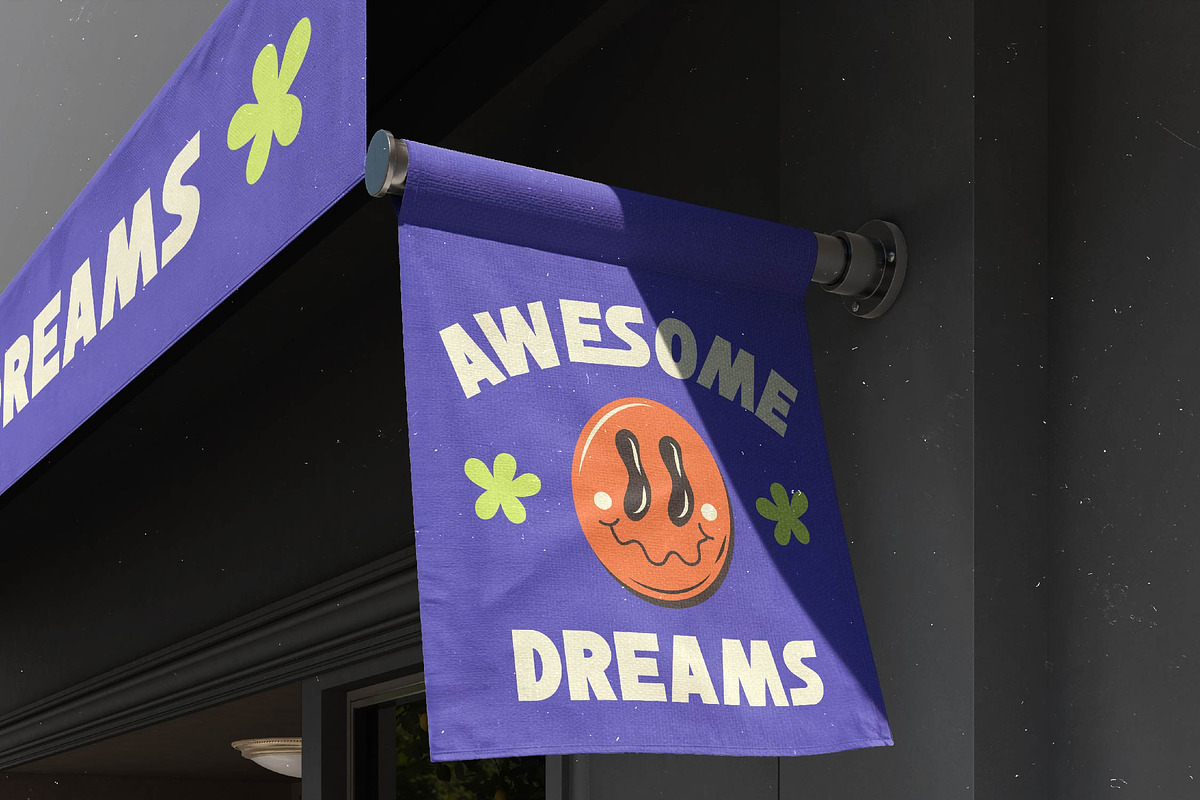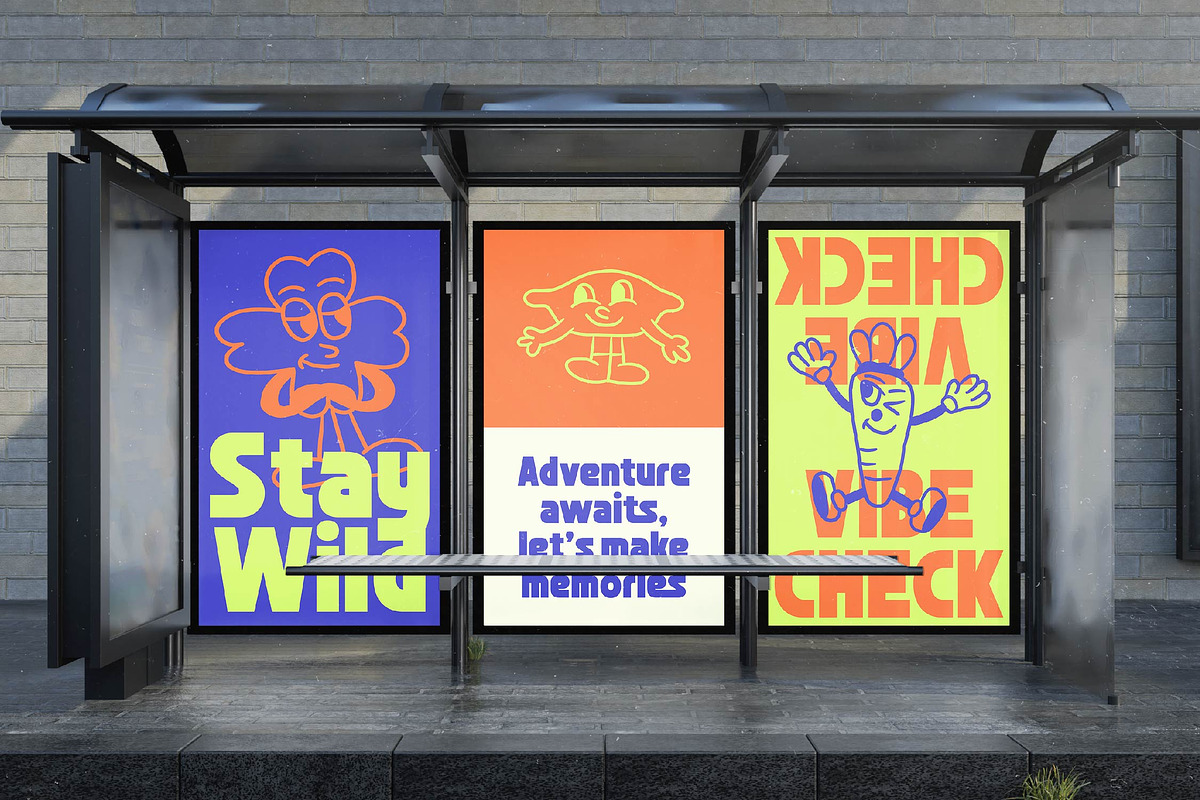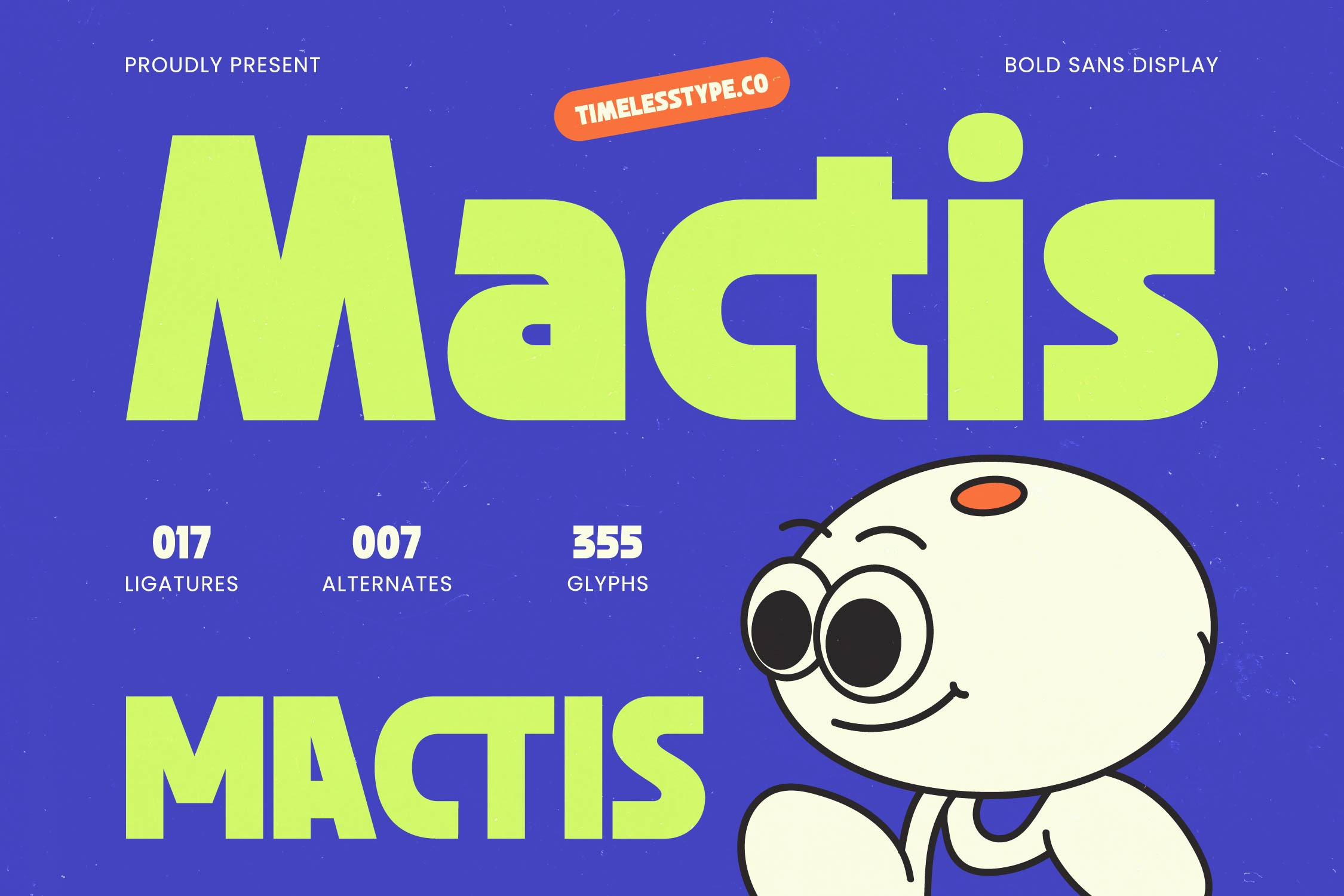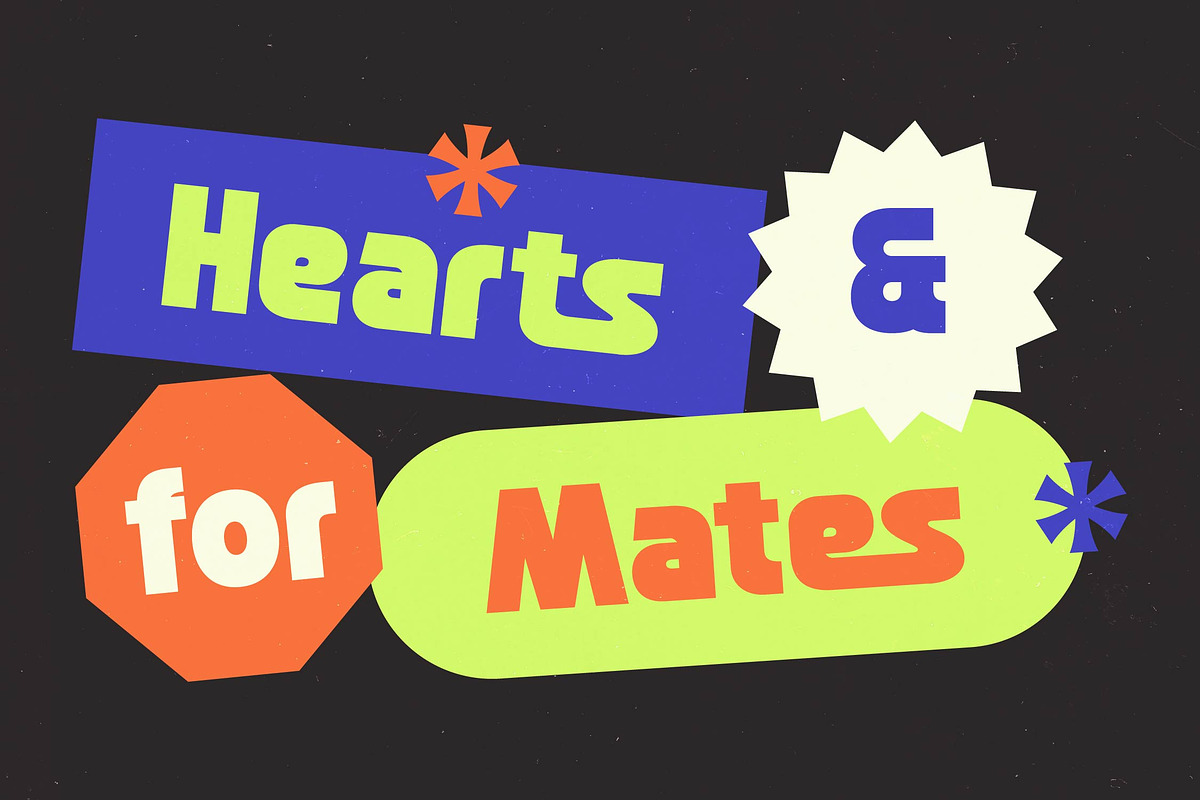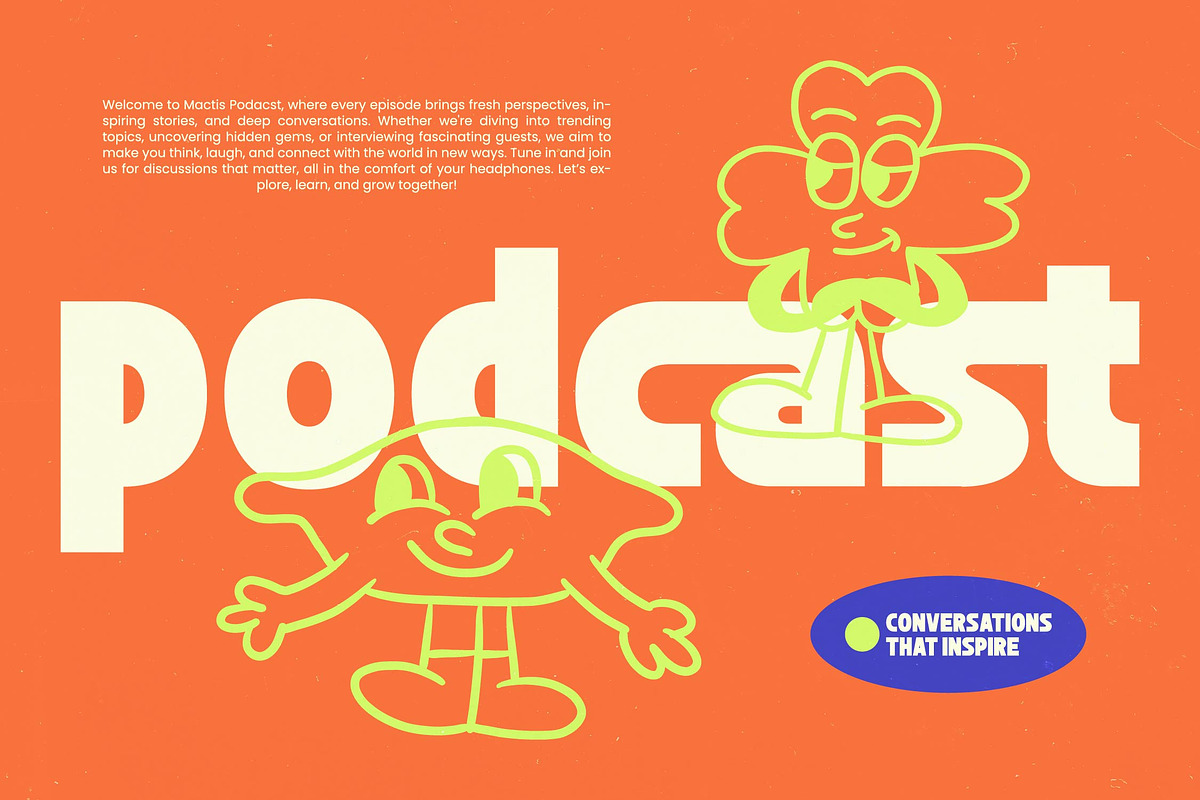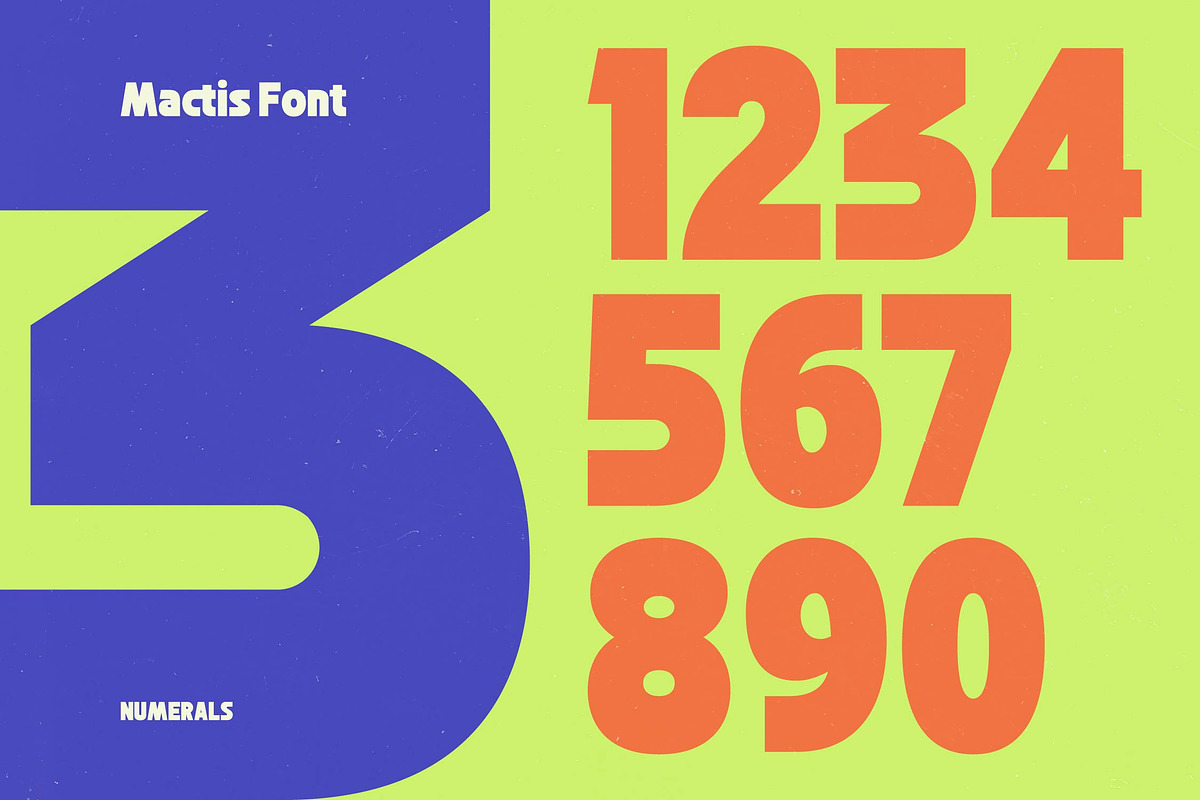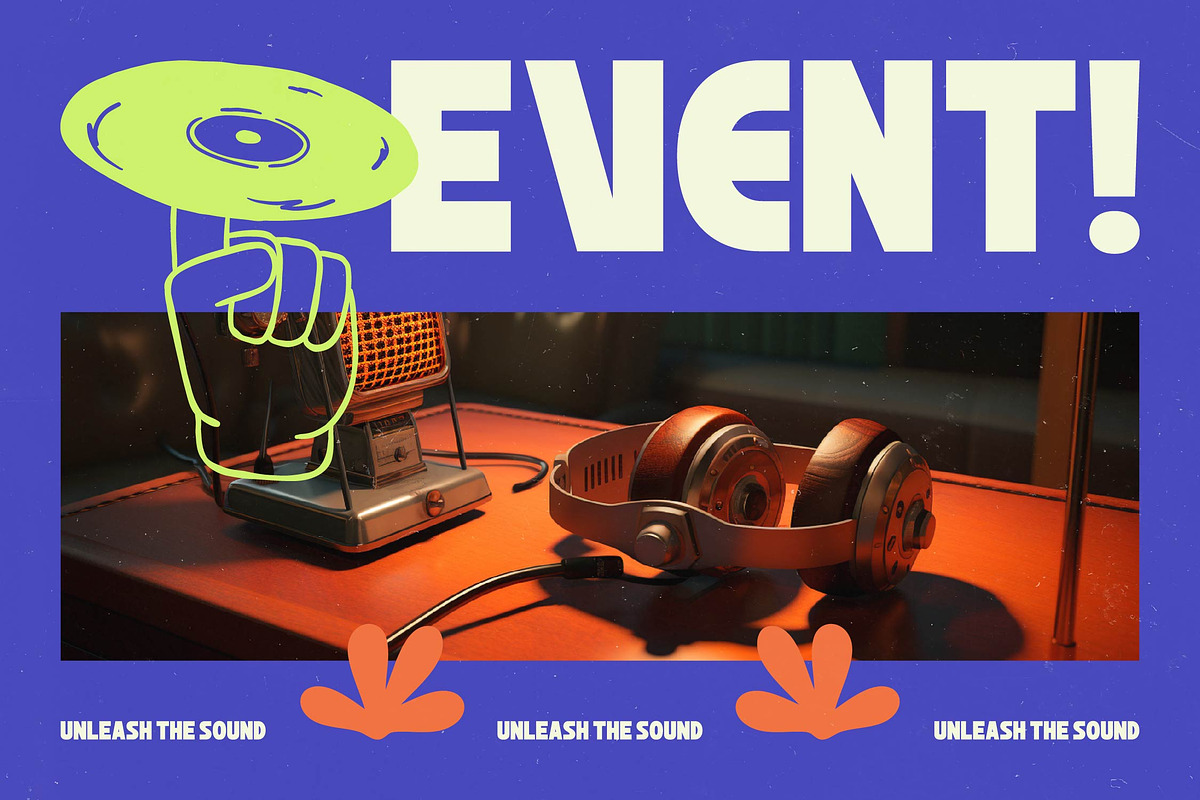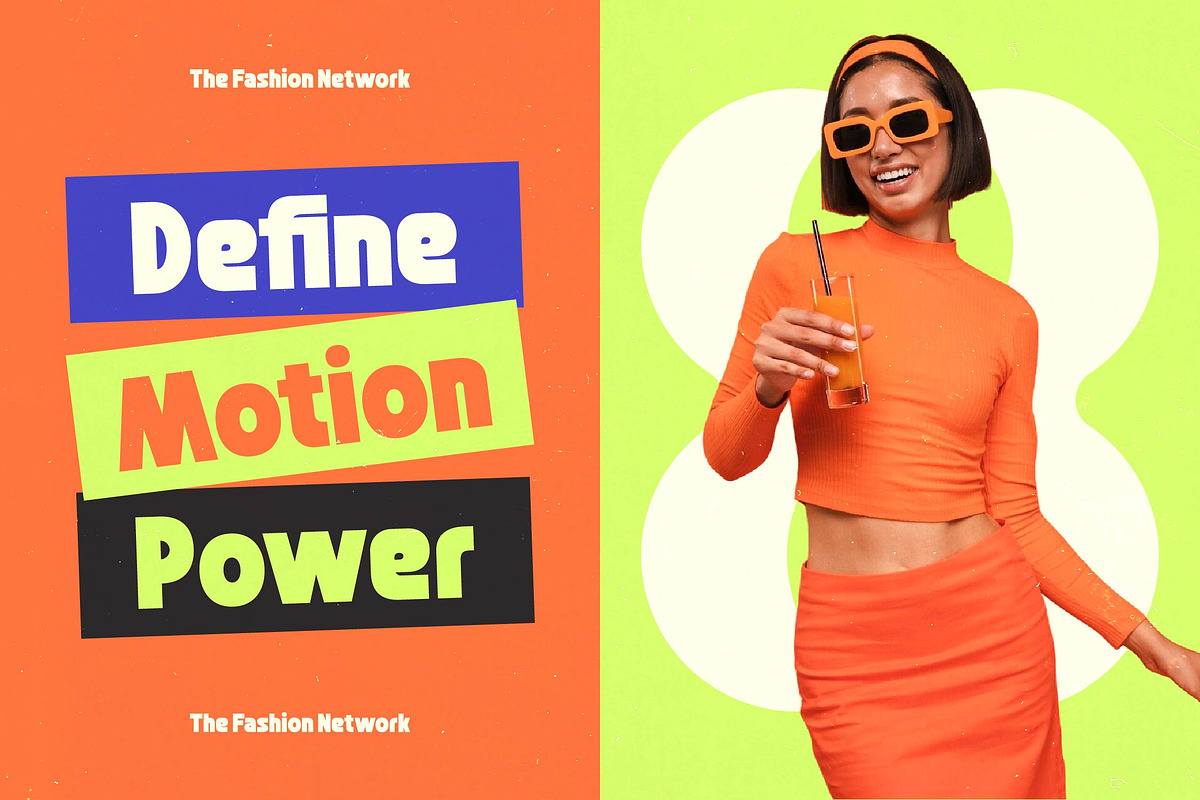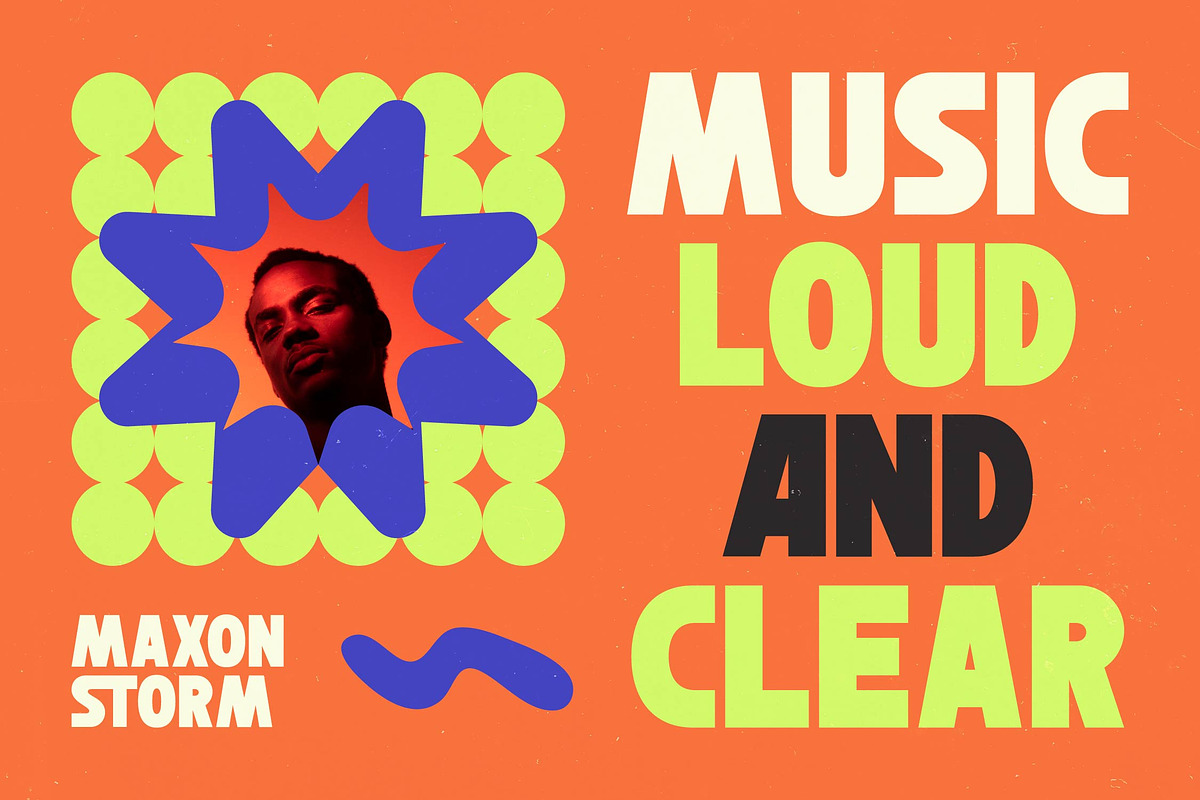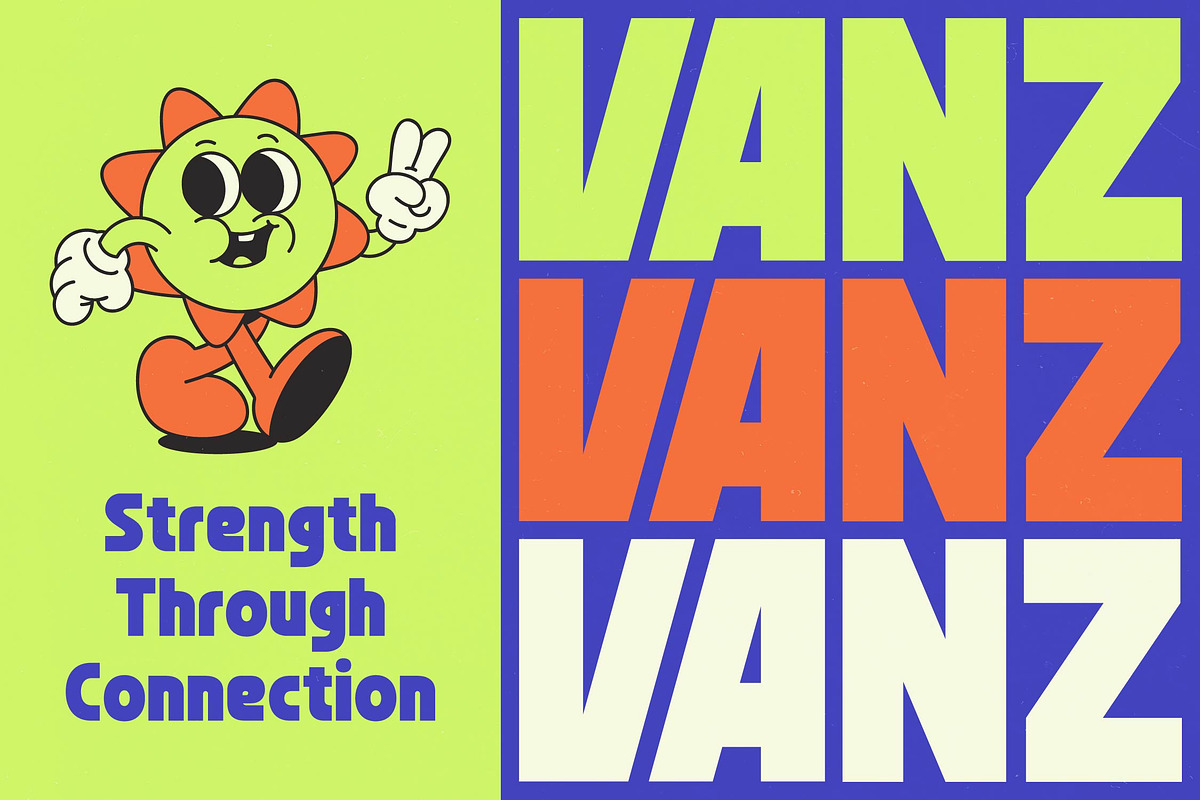
Mactis Bold Sans Display Font
Step into a world of vibrant energy and unmistakable presence with Mactis, a typeface designed to command attention while maintaining a playful spirit. This bold sans display font bridges the gap between contemporary edge and nostalgic charm, making every word leap off the screen or page with massive personality.
Inspired by the expressive poster art of the late 20th century and the fluid lines of modern character design, the visual language of this font evokes a sense of joy and movement. It captures an atmosphere that is both professional and approachable, making it the ideal choice for creative brands that aren't afraid to show their authentic side.
When you need a modern serif display style impact in a bold sans format, this font delivers a high-energy luxury typography feel that balances heavy weight with intentional whitespace. Its chunky terminals and tight kerning ensure a massive branding impact and provide an editorial font quality that rivals any high-contrast serif in high-end layouts.
Tapping into the current modern serif trend of using thick, expressive letterforms, this typeface is a primary choice for editorial display fonts that prioritize a unique visual identity. Its character-driven typography resonates with today's visual culture, where bold and loud designs are dominating the digital and print landscapes.
This versatile powerhouse is perfectly suited for high-impact logo design and comprehensive branding projects that require a distinct and memorable voice. Beyond identity work, it excels in modern editorial layouts, eye-catching packaging, and even experimental wedding stationery or high-end fashion lookbooks.
Every license includes a robust set of features including 17 unique ligatures and 7 creative alternates to customize your type for bespoke designs. With 355 glyphs, it offers full multilingual support and a wide range of international characters, though it skips decorative swashes to maintain its clean, geometric, and bold aesthetic.